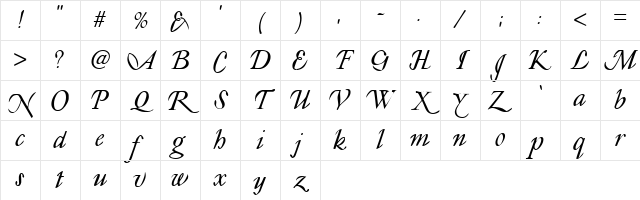
Lyonesse!" Regular
Design Context for Lyonesse!"
Lyonesse!" is a composed and adaptable typeface that performs quietly and consistently across a wide range of design contexts.